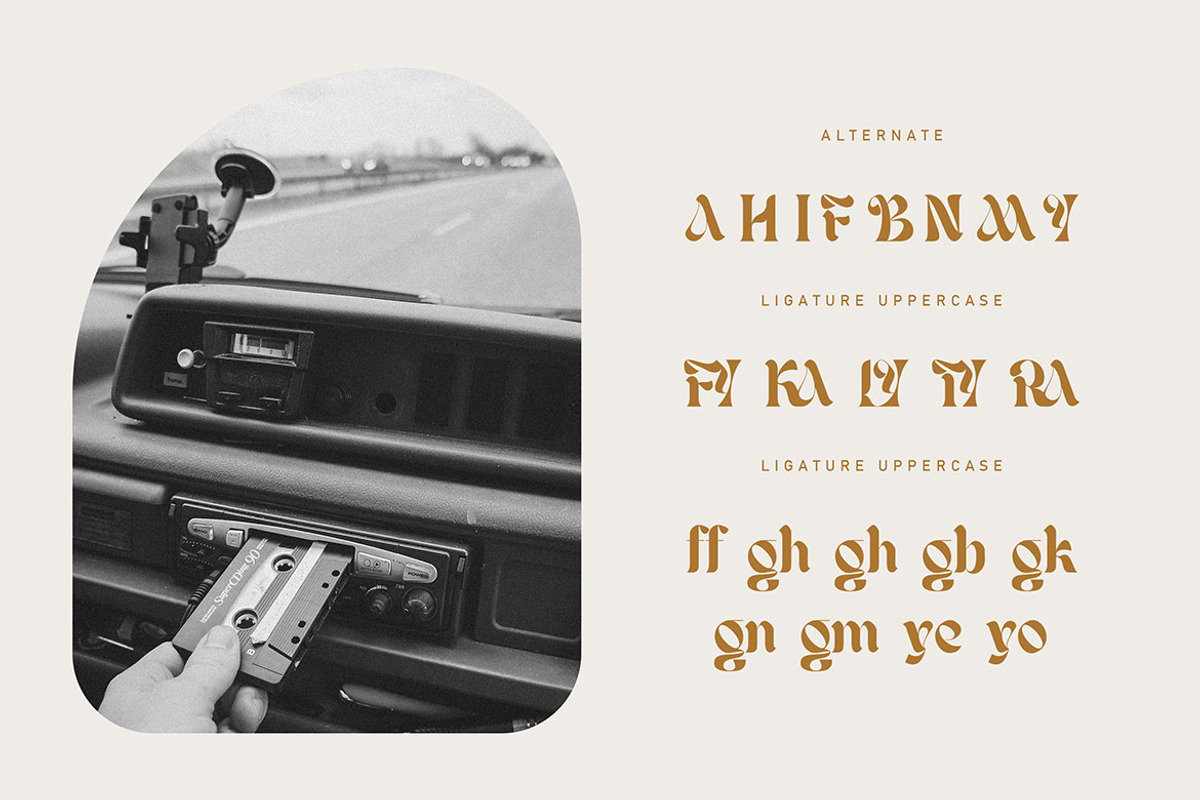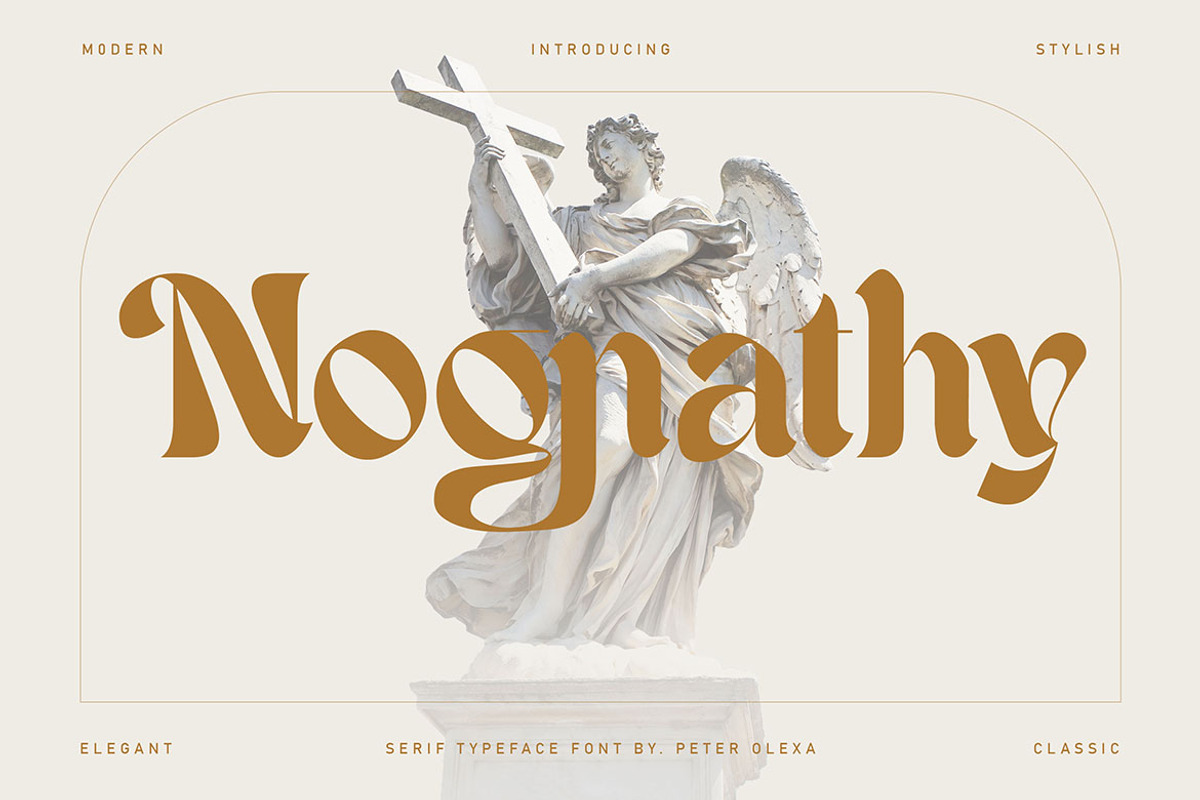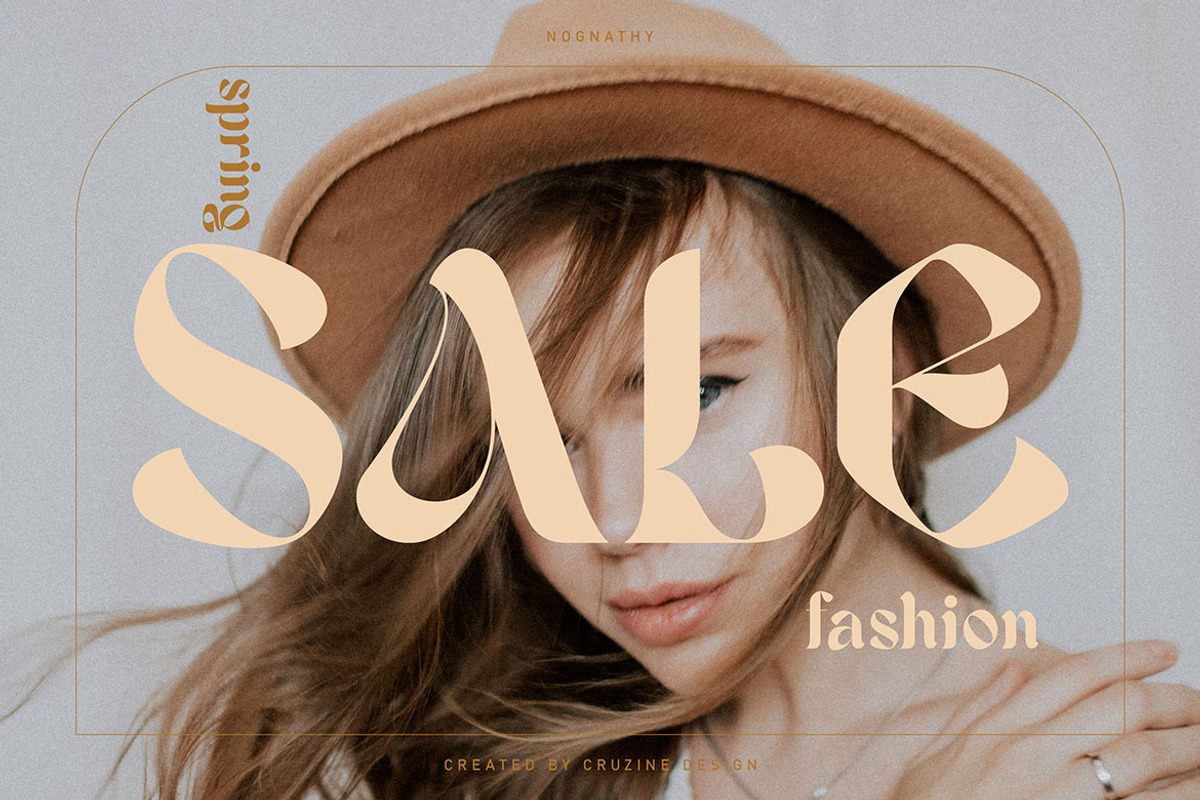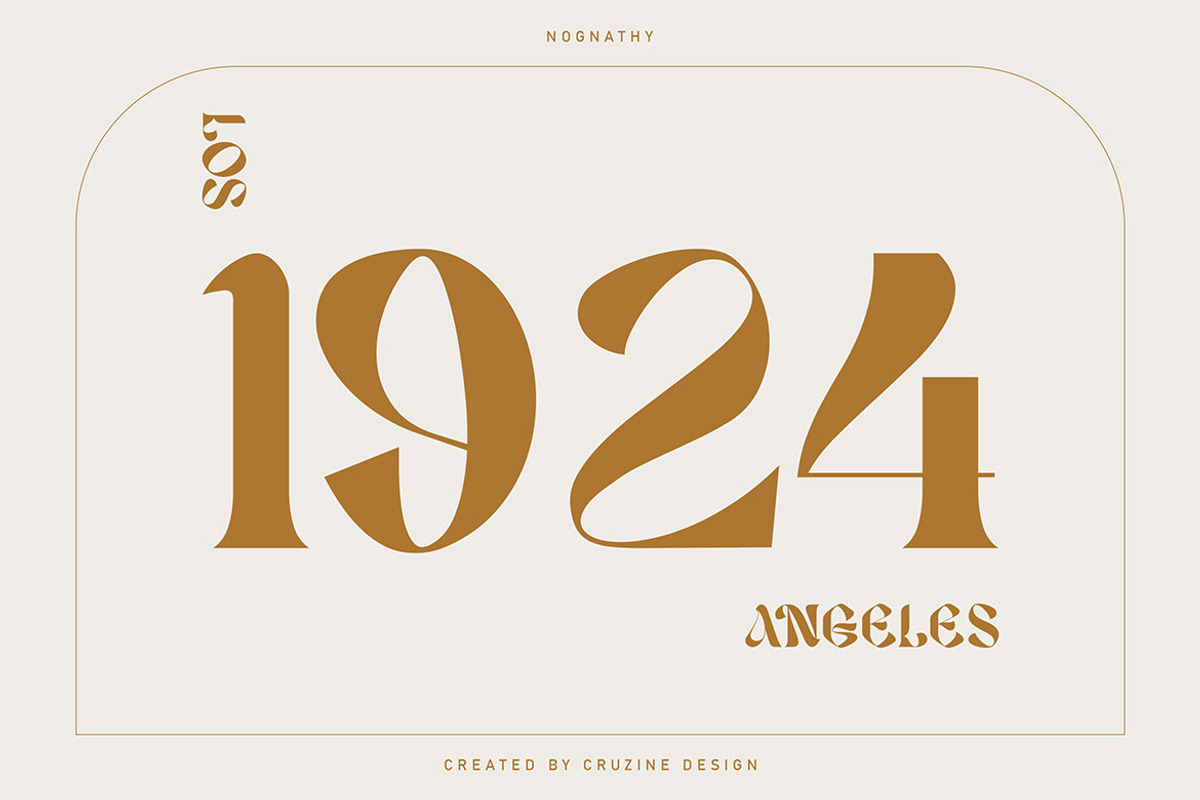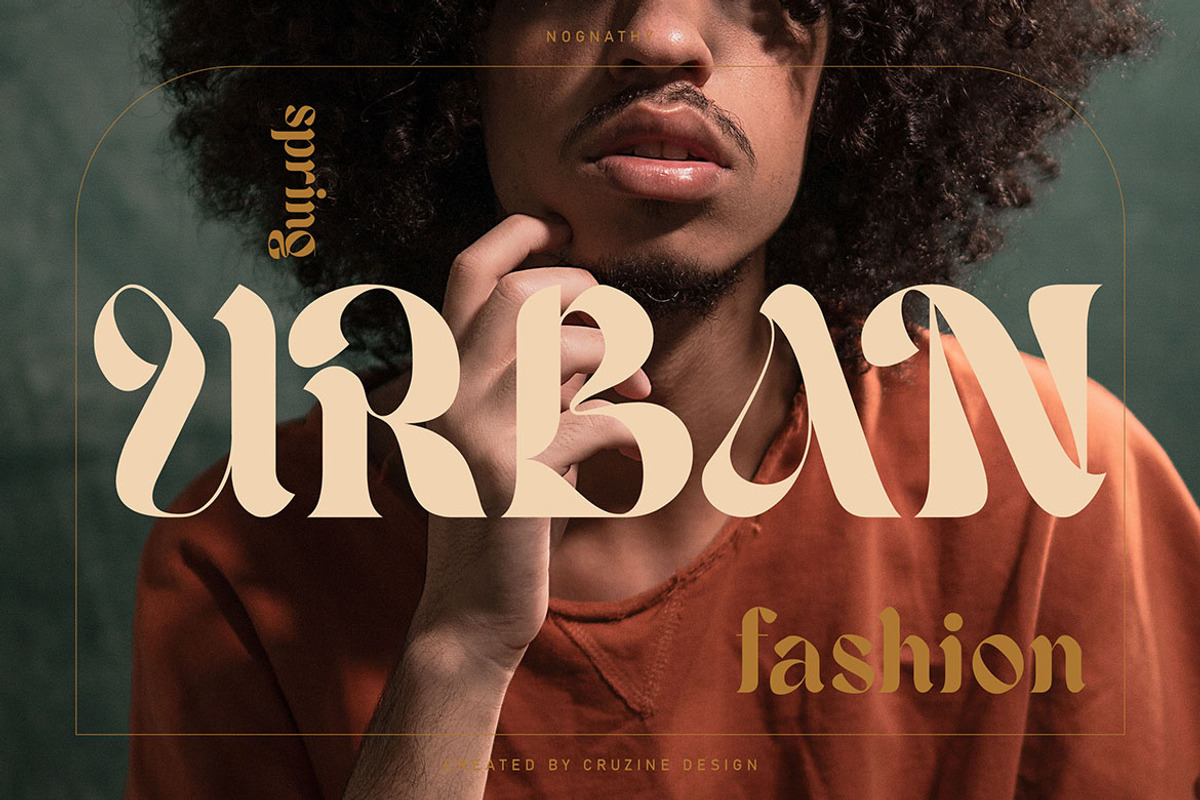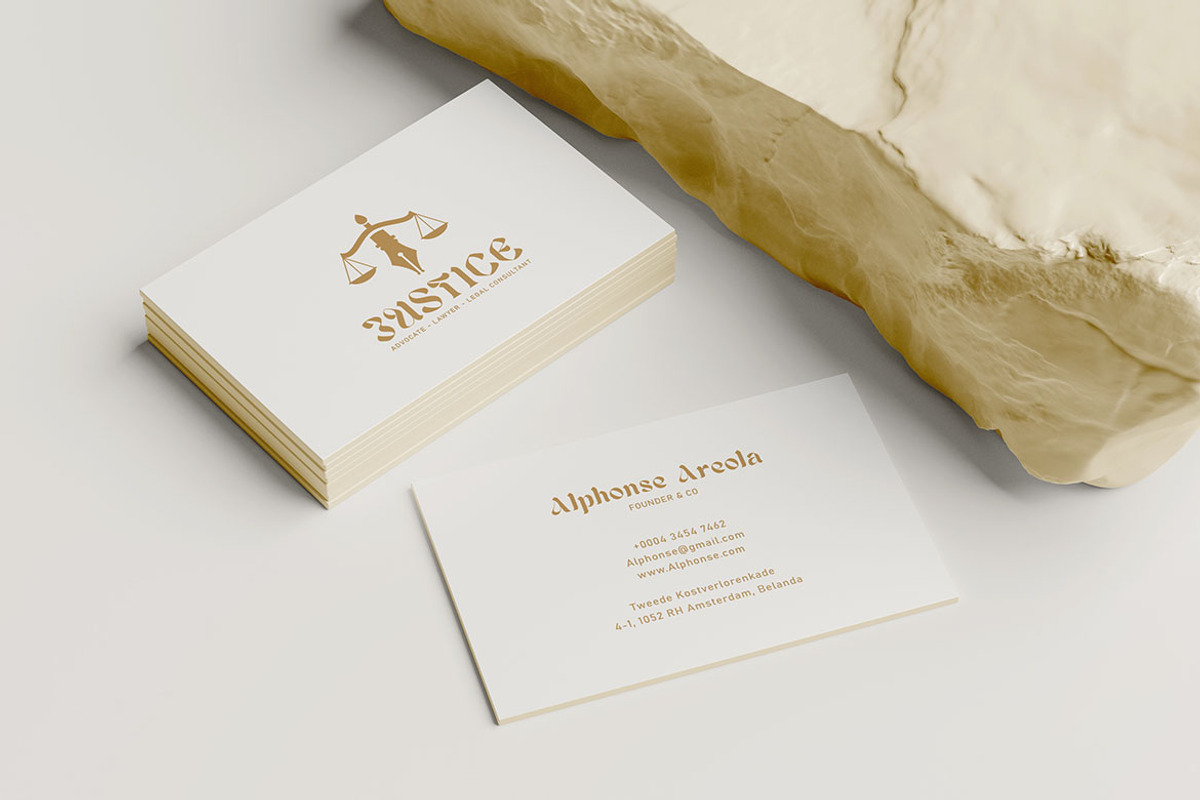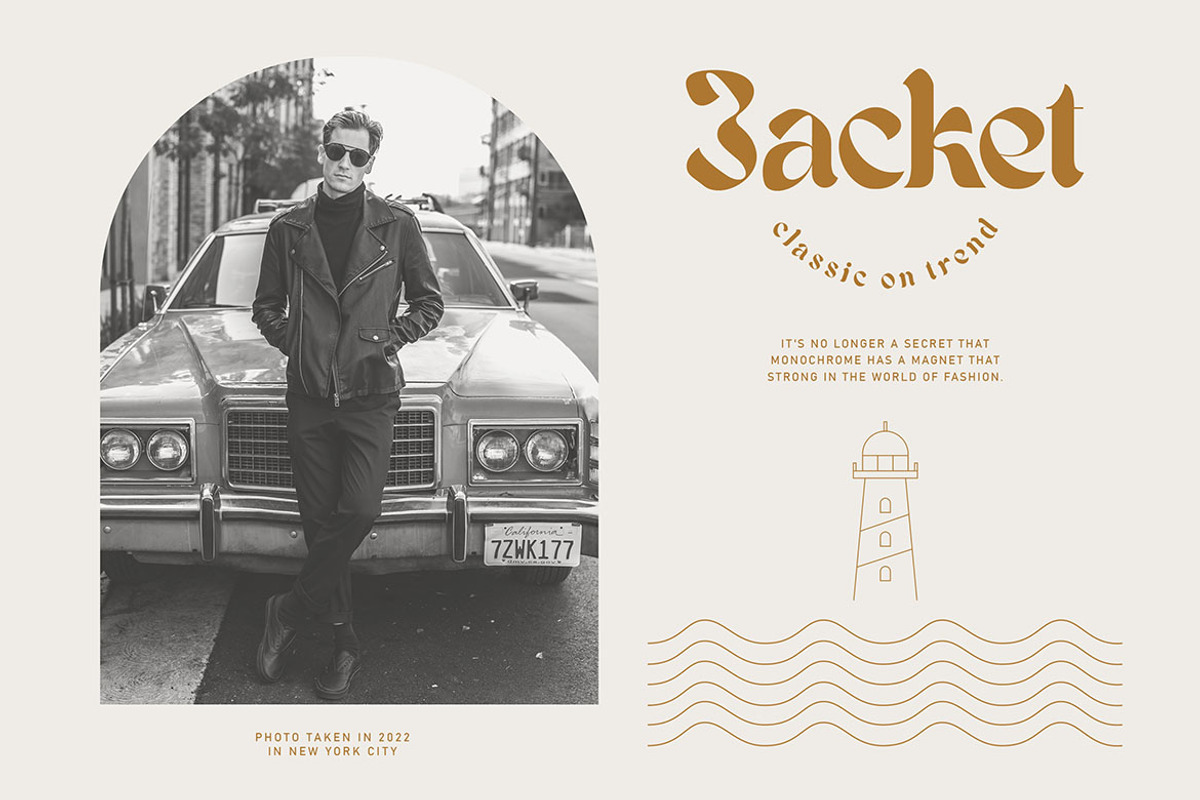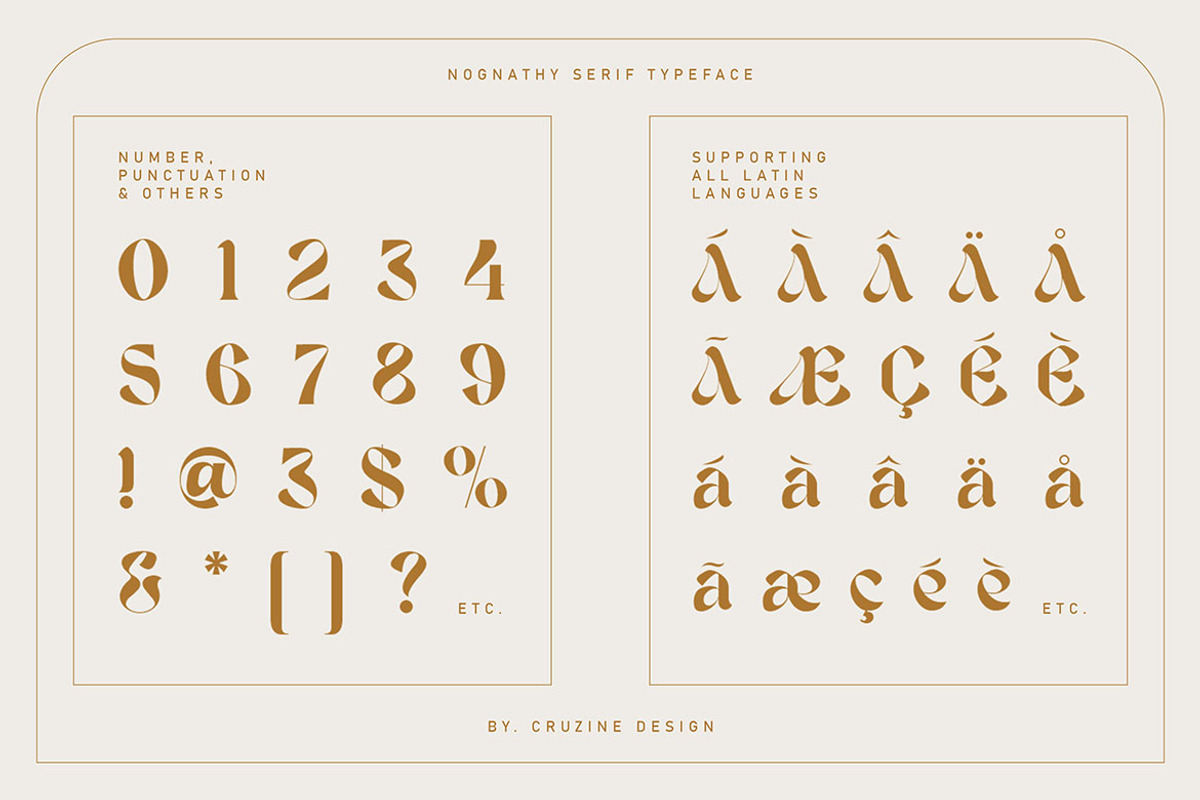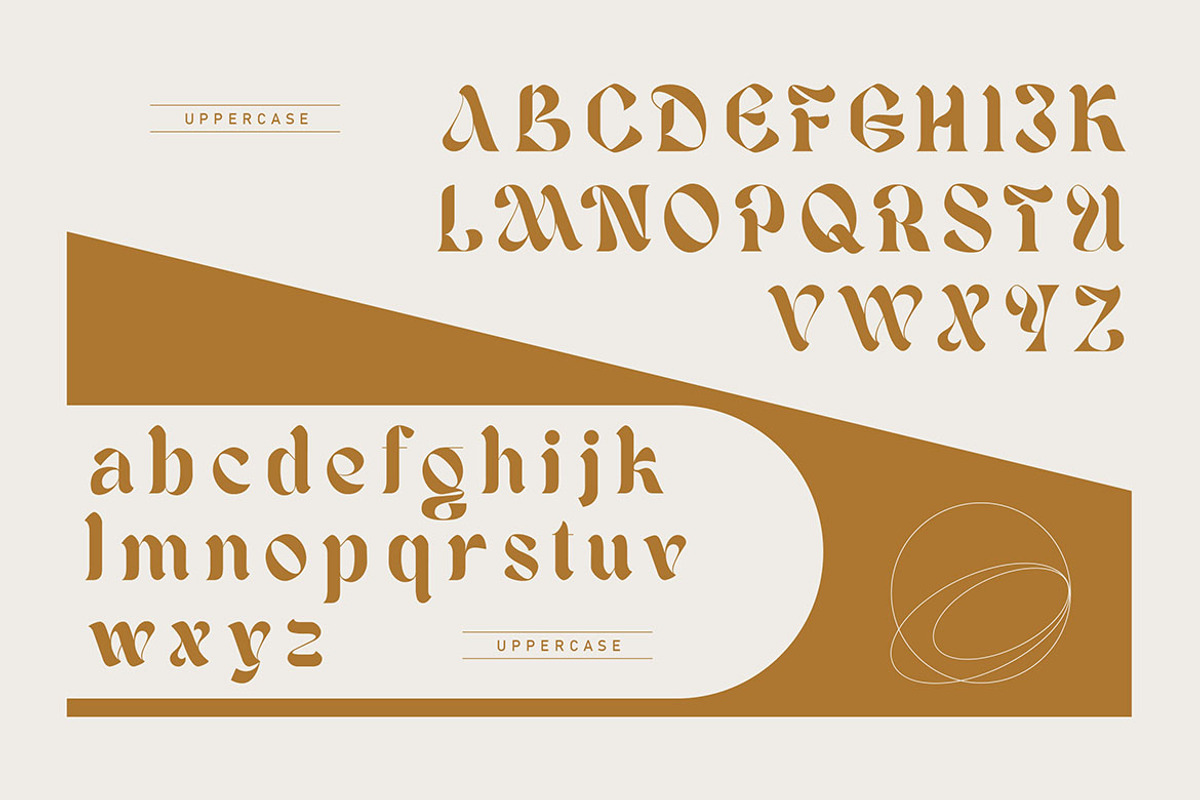
Nognathy - Artistic Serif Font
Trendy, artistic, unique & modern style serif font for your fancy projects. Elegant, fashion and blackletter style on Nognathy font will be great for any branding project. Lot of alternates and ligatures will help you to create unique and original logo design or website header! Enjoy :)
- Alternate characters & ligatures
- Great for modern branding projects!